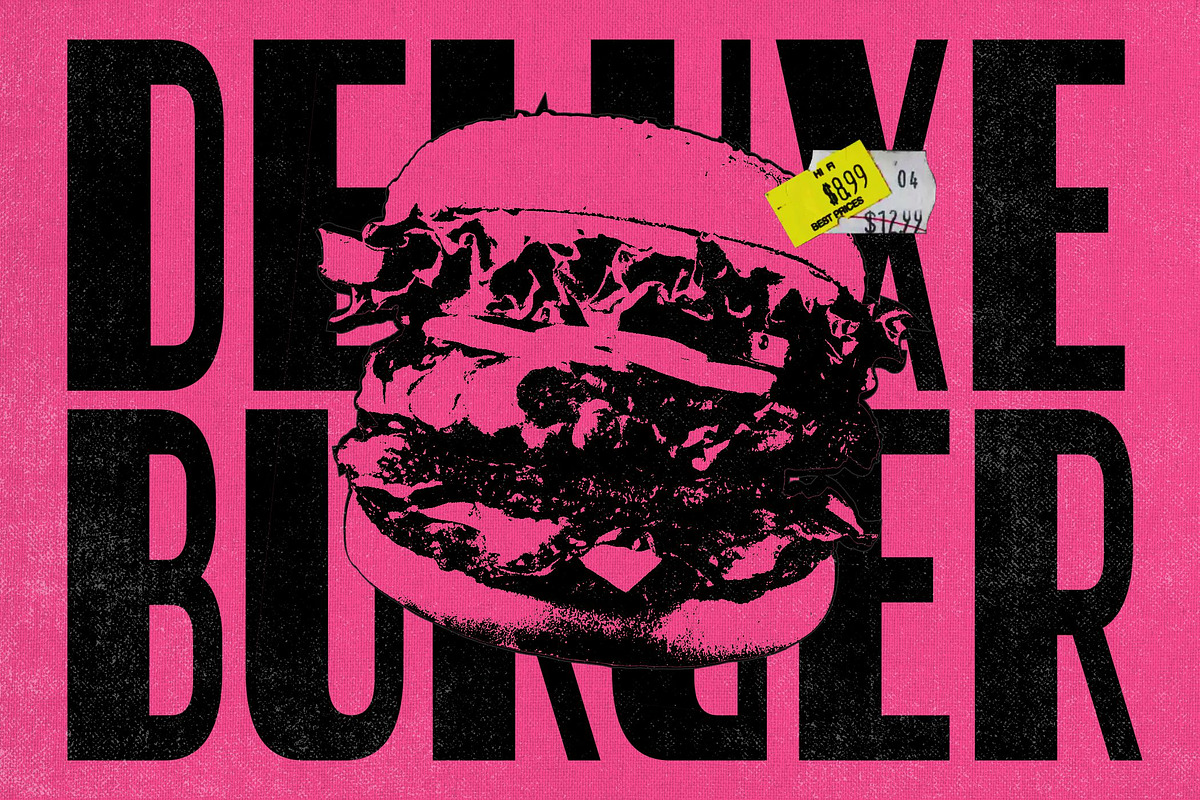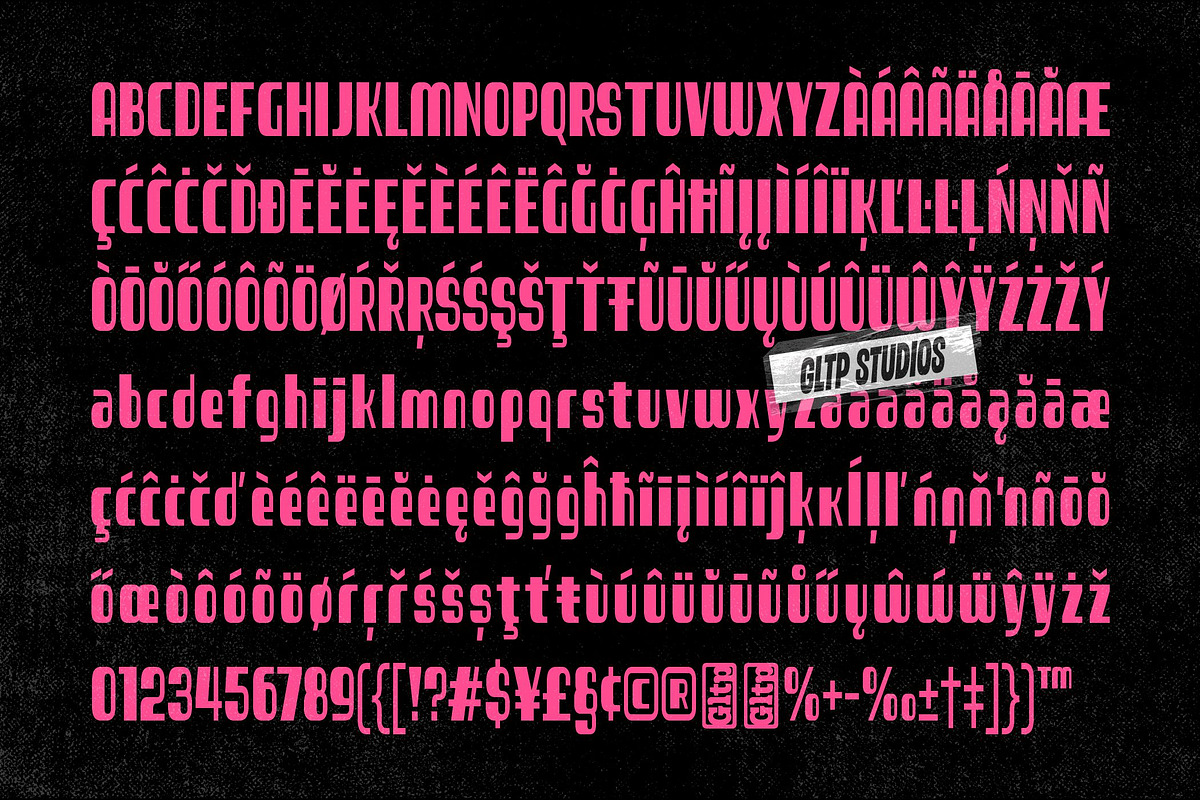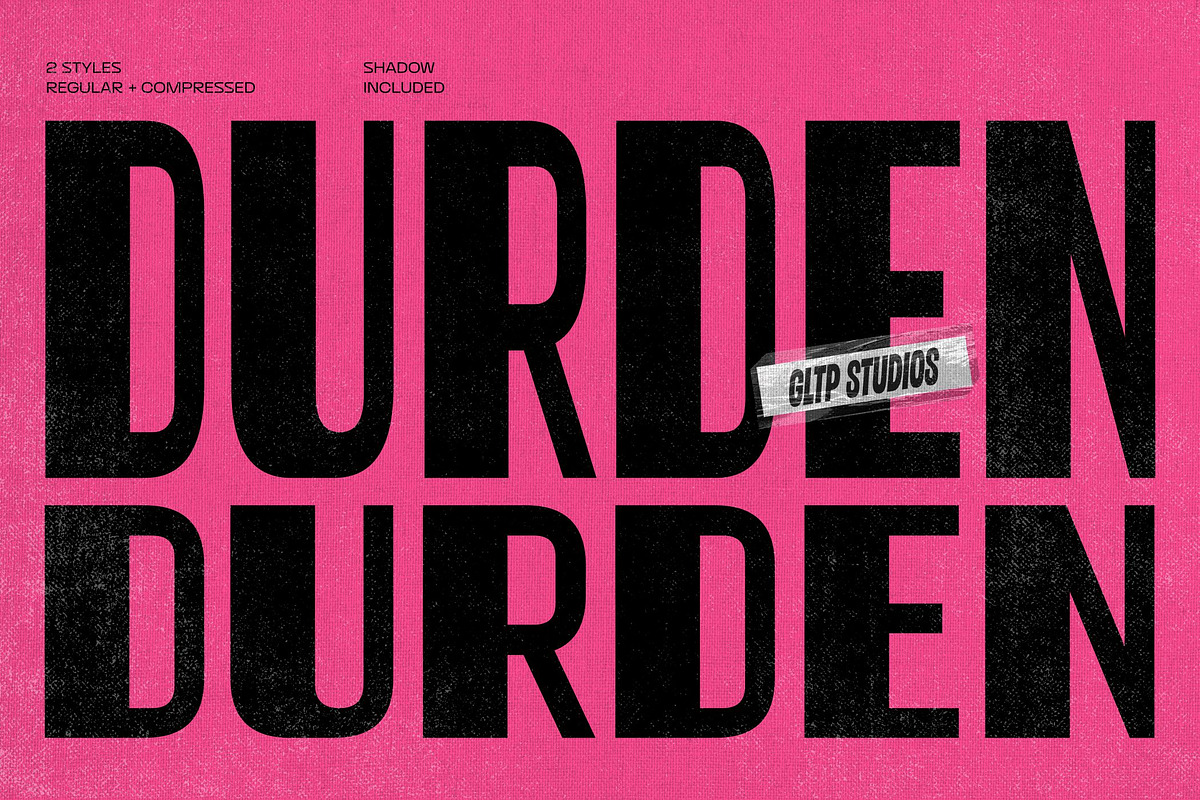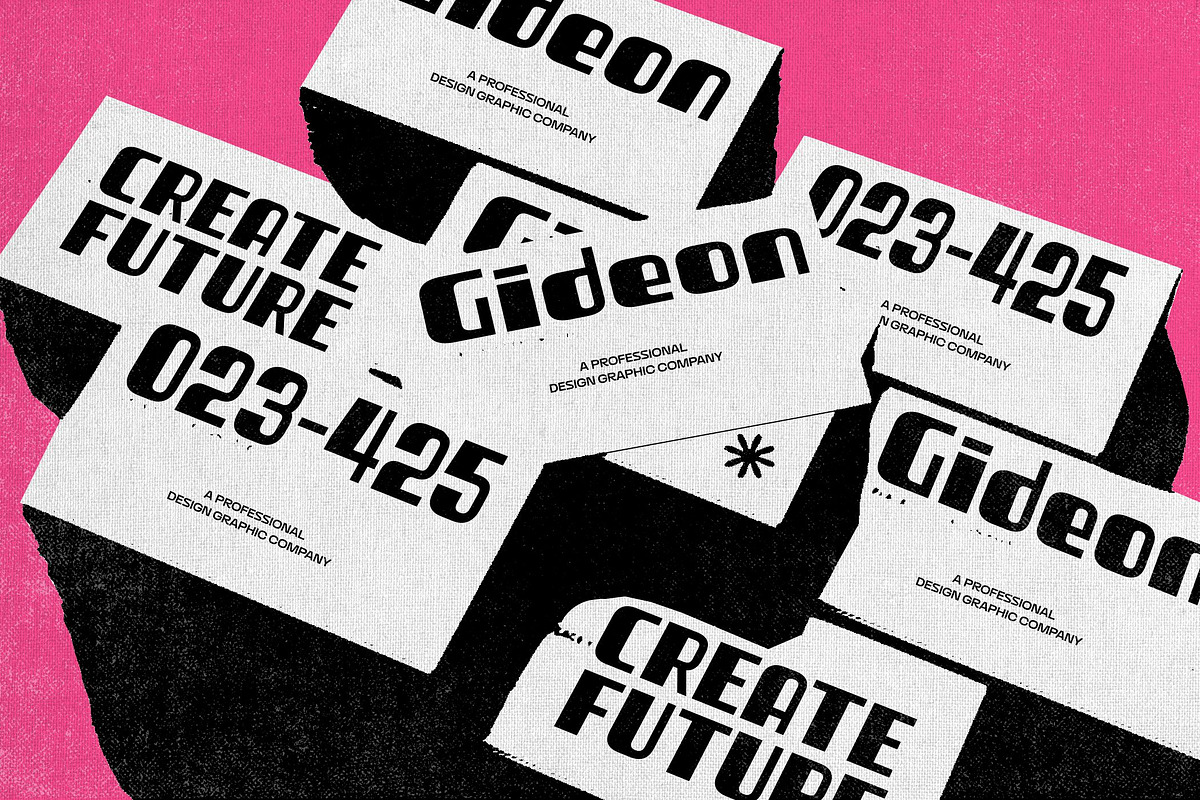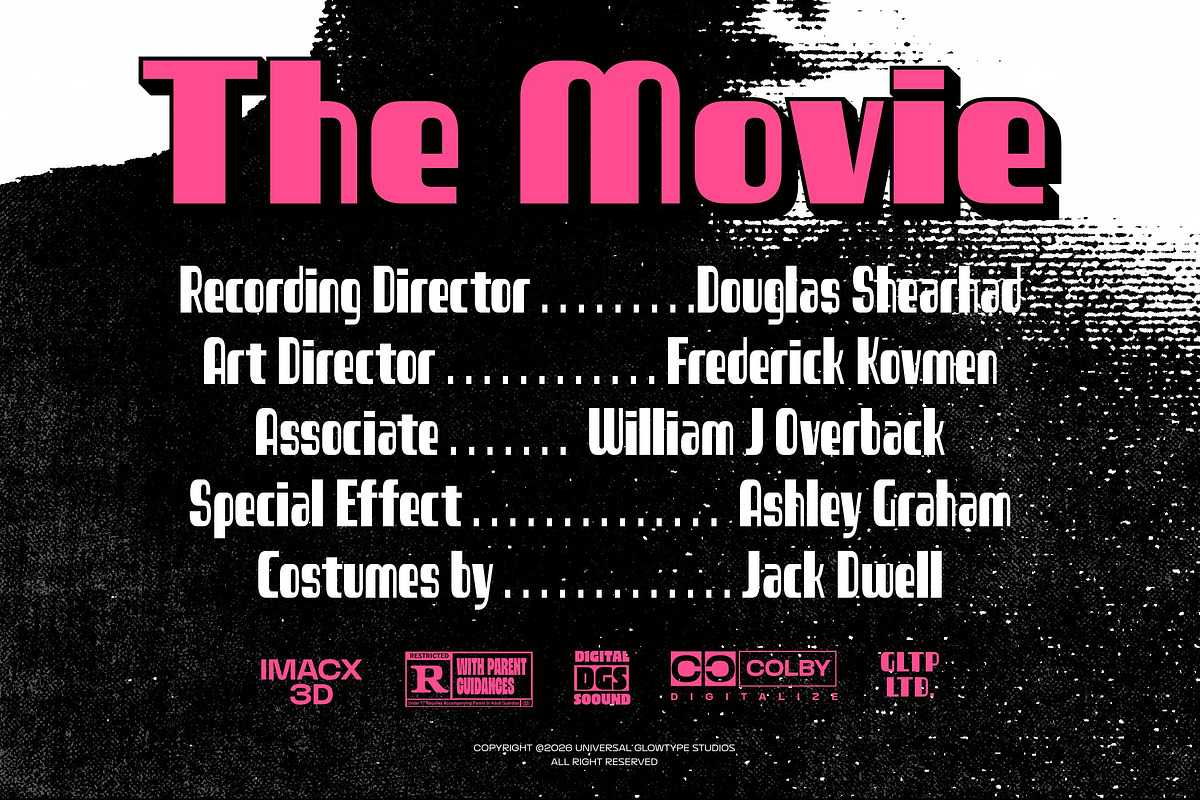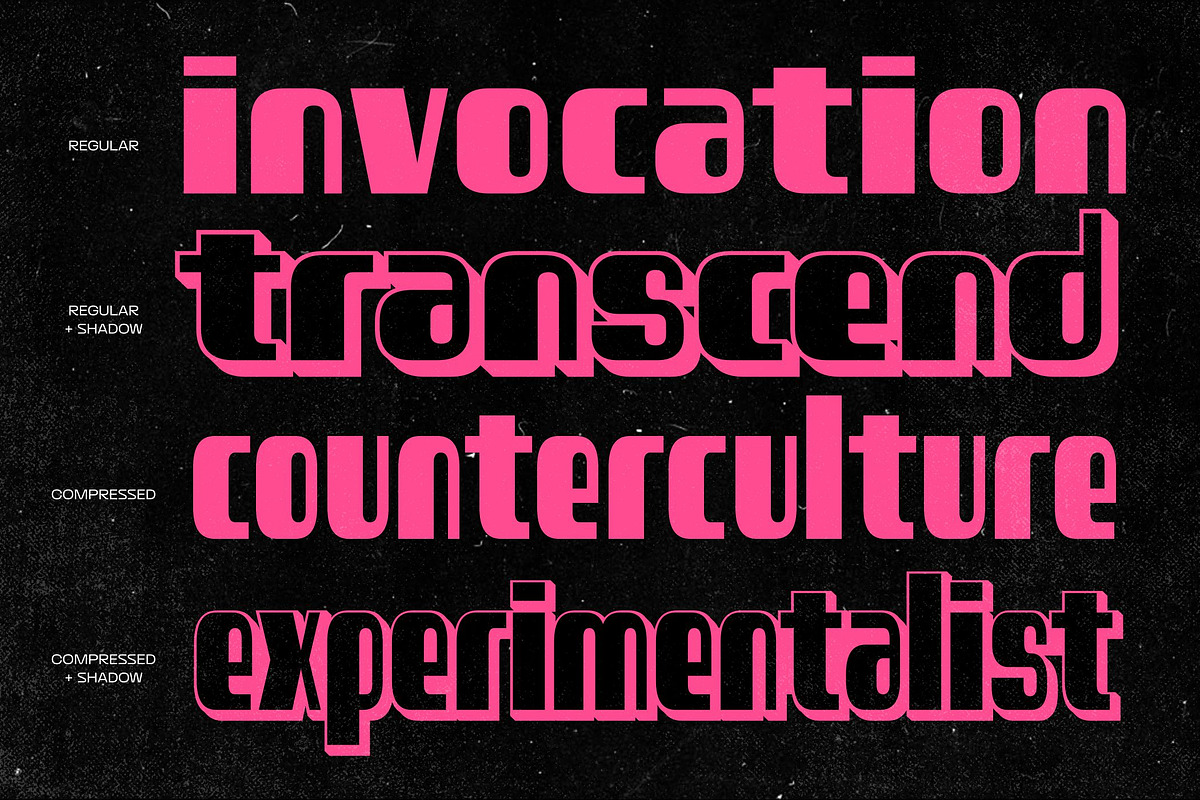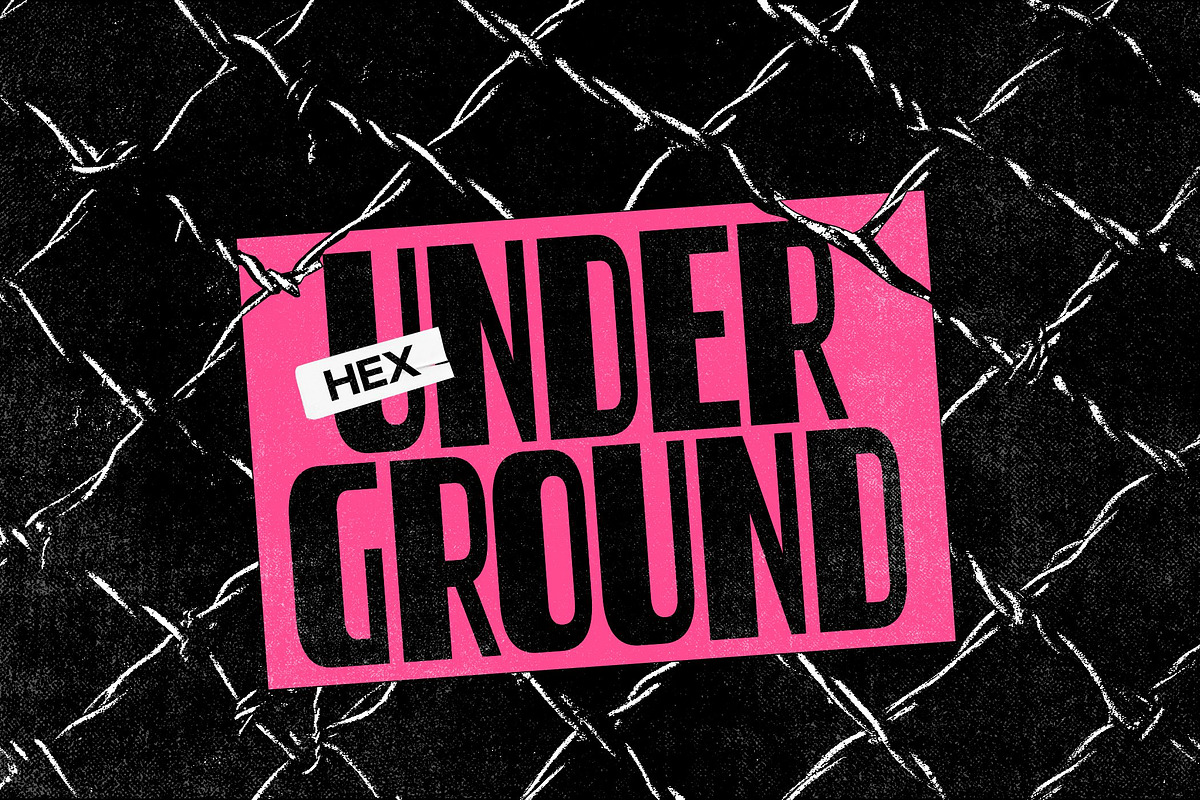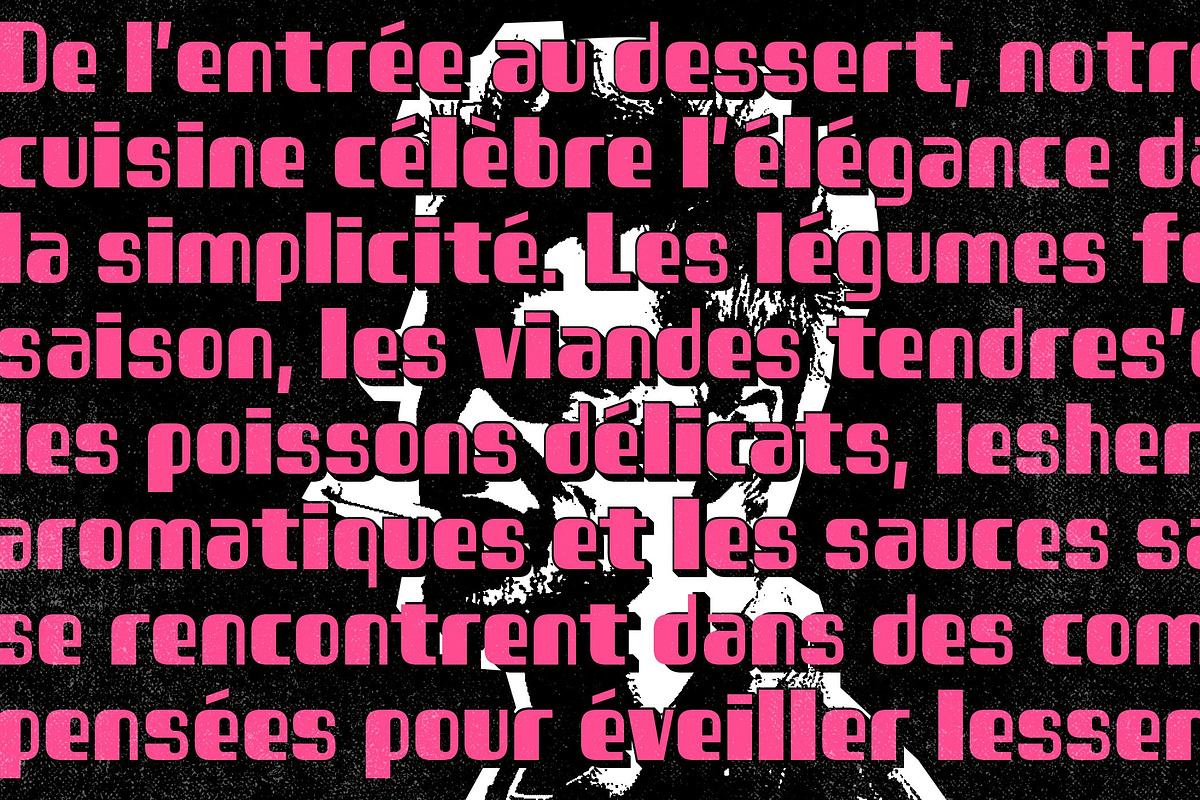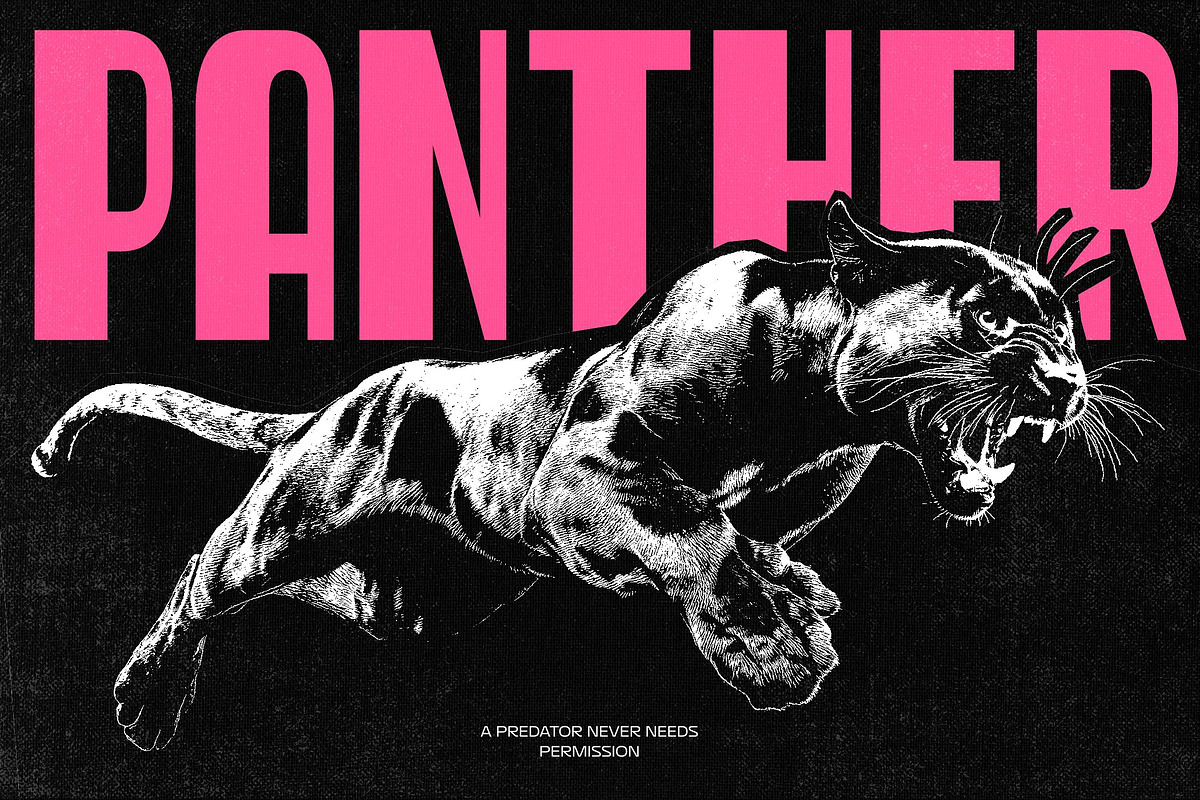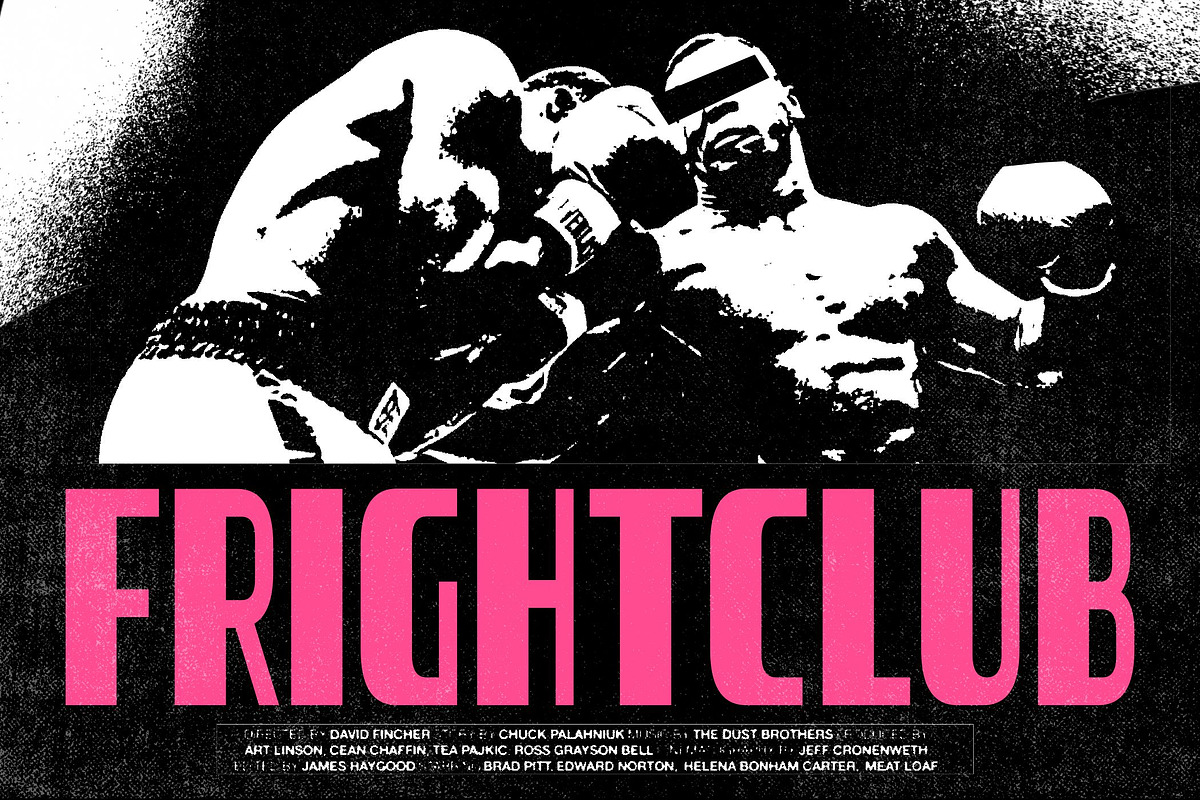
DURDEN — TYPE WITH AN ATTITUDE
Durden is a bold display typeface built for impact, attitude, and visual disruption. Drawing from the language of underground publishing, protest graphics, punk culture, and uncompromising editorial typography, it combines a forceful condensed structure with sharp proportions and a distinctly contemporary edge.
Its strong vertical forms create an immediate presence, allowing headlines to occupy space with intensity while maintaining a disciplined typographic rhythm. The Regular style delivers a powerful, compact texture, while Compressed pushes the proportions further, creating an even denser and more confrontational voice for large-scale display work.
Durden is accompanied by a Shadow style, designed to extend the primary letterforms into a layered graphic treatment. Used independently or in combination with the main styles, the shadow introduces depth, contrast, and a distinctly poster-driven character—making it particularly effective for expressive typography and art-directed compositions.
The family is designed to feel raw without becoming chaotic. Its strength comes from controlled proportions, decisive forms, and a narrow footprint that gives words a powerful silhouette. Durden works especially well when typography needs to carry the visual identity of the piece rather than simply support it.
Designed for posters, editorial headlines, album and book covers, fashion graphics, campaigns, packaging, merchandise, and cultural identities, Durden brings a sense of urgency and rebellious energy to contemporary visual communication.